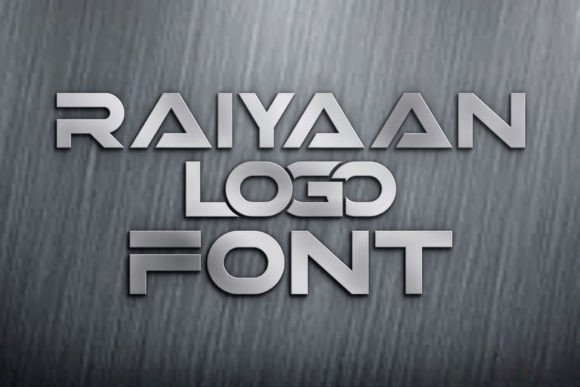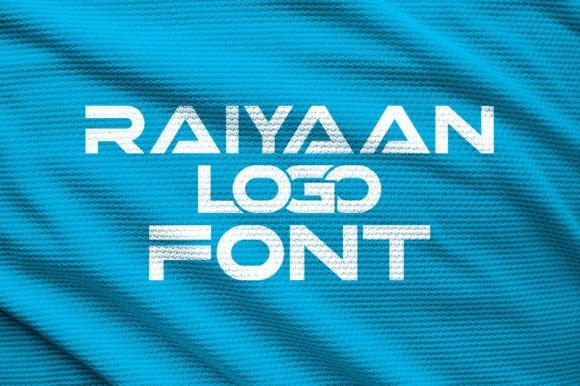
Raiyaan Font
Raiyaan Font is a bold sans-serif font with a lot of alternate glyphs. This font is the perfect match for Logo and T-shirt design. Raiyaan font is also usable in a wide range of works such ascovers, posters, quotes, product packaging, merchandise, social media, and much more!